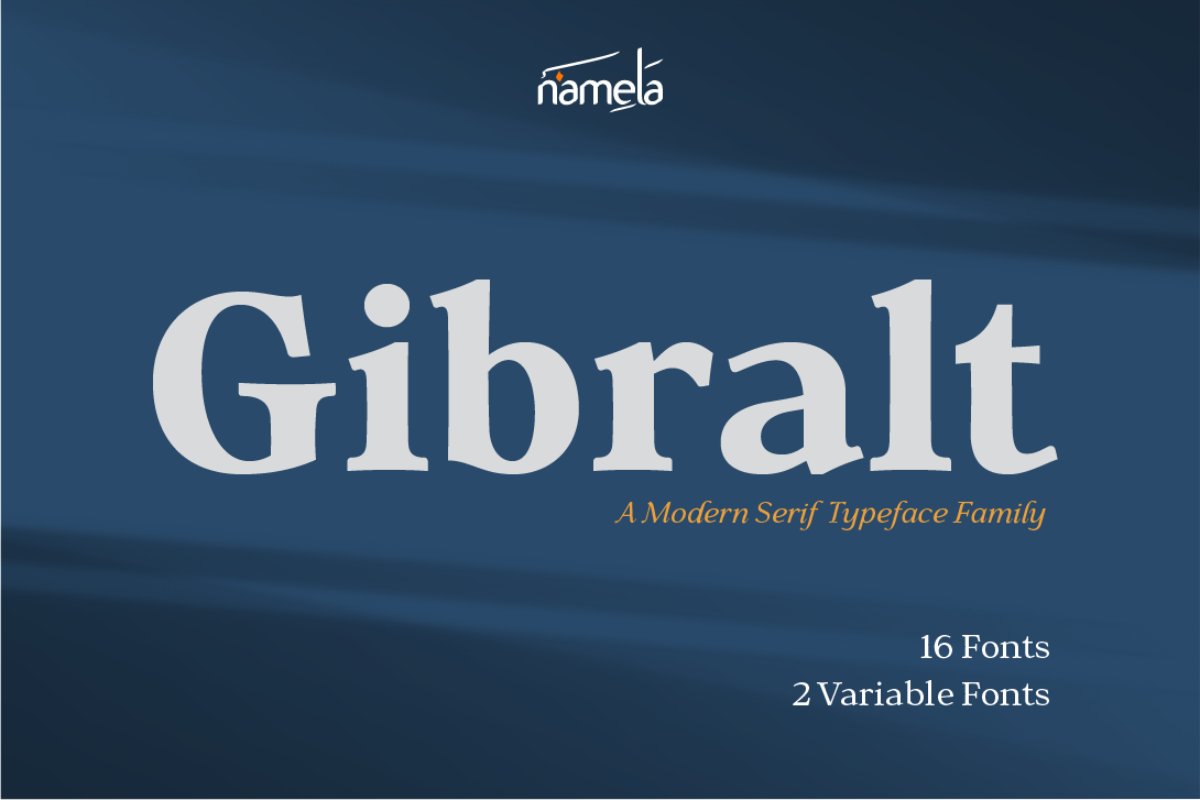
Gibralt Regular
Gibralt Font - A Venetian Serif Typeface Editorial & ePub Certain typefaces carry weight beyond their visual form—a sense of history, authority, and intention that is immediately felt. Gibralt Venetian Serif Font is one of those rare designs. Rooted in the Venetian tradition and refined through a contemporary lens, this serif family combines elegance, structure, and technical depth. With high contrast strokes and a complete multi-style system, it stands as a powerful tool for editorial design,